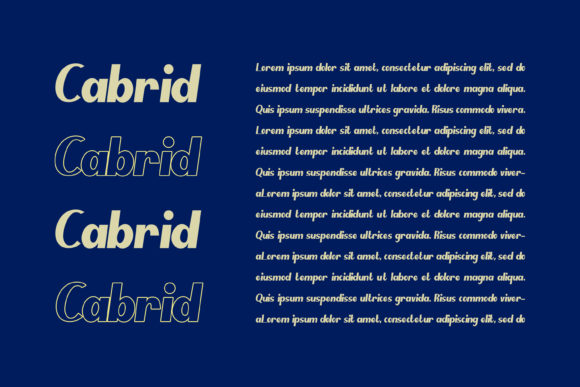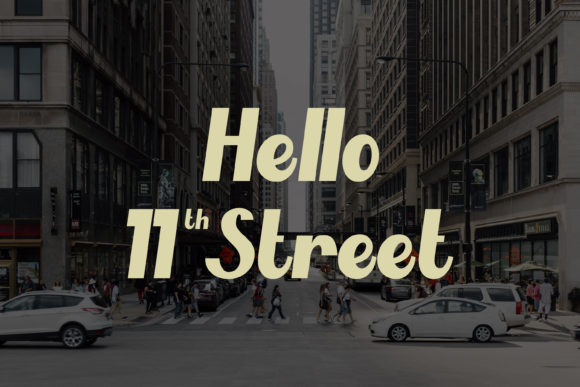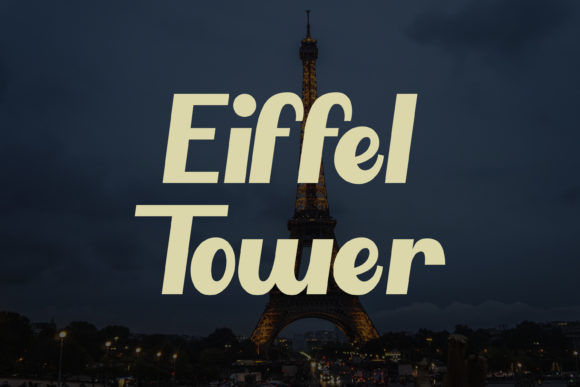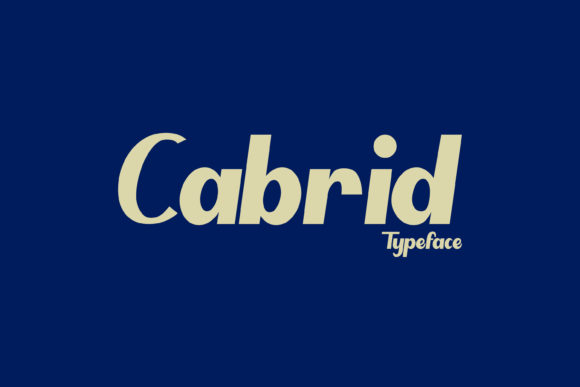
Cabrid Font: Elevate Your Crafting Ideas with a Modern and Bold Display Font
In the world of crafting, design, and branding, typography plays a crucial role in making a statement. A well-chosen font can elevate your project from ordinary to extraordinary. If you’re looking for a font that can add a touch of modernity and boldness to your crafting ideas, look no further than Cabrid Font. In this article, we’ll explore the features and benefits of Cabrid Font, and how it can take your crafting projects to the next level.
What is Cabrid Font?
Cabrid Font is a modern and bold lettered display font designed to make a statement. Its sleek and contemporary design makes it perfect for a wide range of crafting ideas, from cards and invitations to branding, labels, and more. With its bold and eye-catching design, Cabrid Font is sure to grab attention and leave a lasting impression.
Features of Cabrid Font
Cabrid Font boasts a range of features that make it an ideal choice for crafters and designers. Some of its key features include:
- Modern and bold design: Cabrid Font’s sleek and contemporary design makes it perfect for modern crafting projects.
- Versatile: Cabrid Font can be used for a wide range of crafting ideas, from cards and invitations to branding and labels.
- Easy to read: Despite its bold design, Cabrid Font is easy to read, making it perfect for projects where clarity is important.
- Scalable: Cabrid Font is highly scalable, making it perfect for projects that require large or small text sizes.
Benefits of Using Cabrid Font
So, why should you choose Cabrid Font for your crafting projects? Here are just a few benefits of using this amazing font:
- Adds a touch of modernity: Cabrid Font’s modern design adds a touch of sophistication and elegance to any project.
- Grabs attention: Cabrid Font’s bold design is sure to grab attention and leave a lasting impression.
- Versatile: Cabrid Font can be used for a wide range of crafting ideas, making it a great addition to any designer’s toolkit.
How to Use Cabrid Font in Your Crafting Projects
Using Cabrid Font in your crafting projects is easy. Here are a few ideas to get you started:
- Cards and invitations: Use Cabrid Font to create bold and eye-catching cards and invitations for special occasions.
- Branding and labels: Use Cabrid Font to create professional-looking branding and labels for your products or business.
- Signs and posters: Use Cabrid Font to create eye-catching signs and posters for events, sales, or promotions.
- Digital projects: Use Cabrid Font in your digital projects, such as social media graphics, blog posts, and more.
Tips and Tricks for Getting the Most Out of Cabrid Font
Here are a few tips and tricks for getting the most out of Cabrid Font:
- Experiment with different colors: Cabrid Font looks great in a range of colors, so don’t be afraid to experiment and find the perfect color for your project.
- Use it with other fonts: Cabrid Font pairs well with other fonts, so try using it with a complementary font to add some visual interest to your project.
- Play with font sizes: Cabrid Font is highly scalable, so try using it in different font sizes to add some visual interest to your project.
| Font Name | Cabrid Font |
| Author | Design Stag |